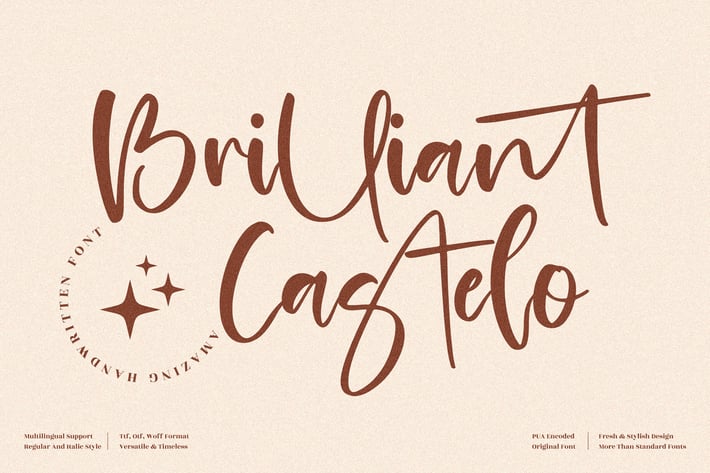
Brilliant Castelo Signature Font
Brilliant Castelo is a refined signature script that flows like a hand-penned autograph—sleek strokes, elegant loops, and glamorous swashes. Its fashionable rhythm and soft contrast make headlines feel luxe and personal at once, perfect for beauty brands, wedding suites, boutique packaging, and social posts that need a polished, modern flourish.
+ Long swashes and graceful signature forms
+ Alternates and ligatures for natural handwriting flow
+ Clean curves with soft contrast for a luxe finish
+ Smooth spacing and refined kerning for professional results
+ Signature logos and personal branding
+ Beauty, fashion, and lifestyle packaging
+ Wedding invitations and stationery
+ Social media posts and highlight covers
+ Business cards and thank-you notes
+ Blog headers and website hero text
+ Product labels and gift tags
+ Editorial spreads and lookbooks
Brilliant Castelo—sign your story with effortless elegance.